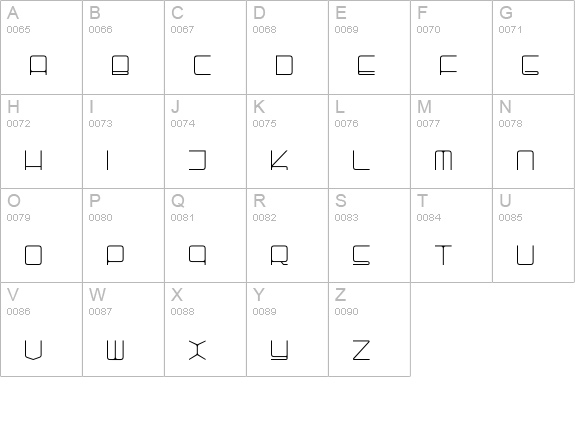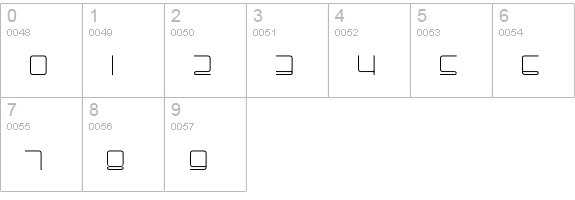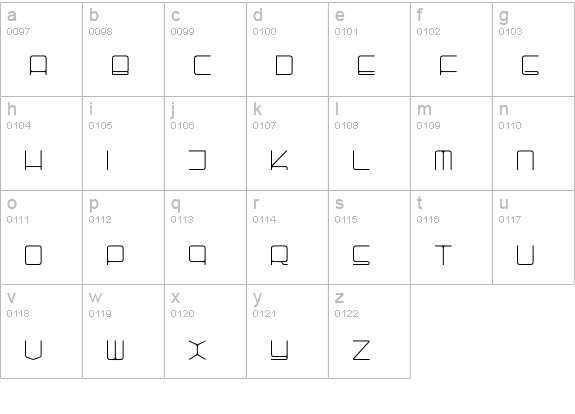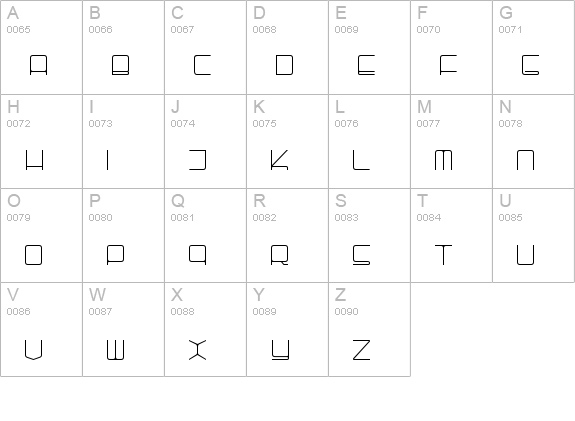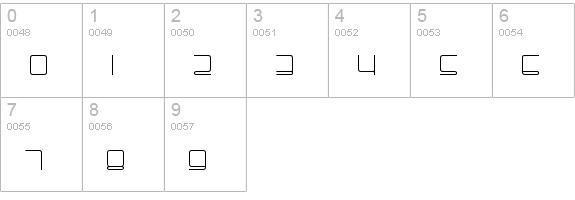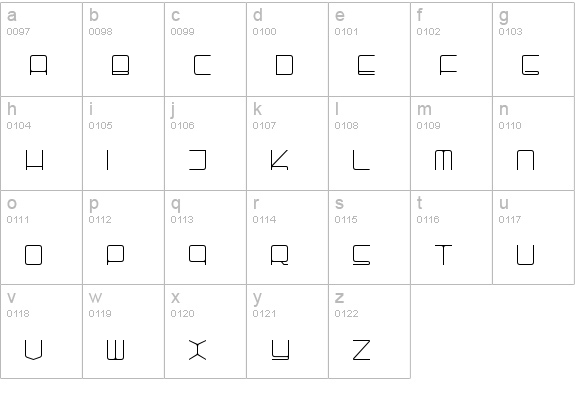
batho Font Details
Batho Font is a stunning display typeface that exudes elegance and sophistication. Its intricate details and sleek lines make it perfect for adding a touch of class to any design project. Batho Font is versatile and can be used for a wide range of applications, from logos to headlines to invitations. The best part? Batho Font is completely free to download at FontsMarket.com! Take advantage of this amazing opportunity to enhance your designs with a premium font that won't cost you a penny. Download Batho Font today and elevate your projects to the next level with its timeless beauty and charm.